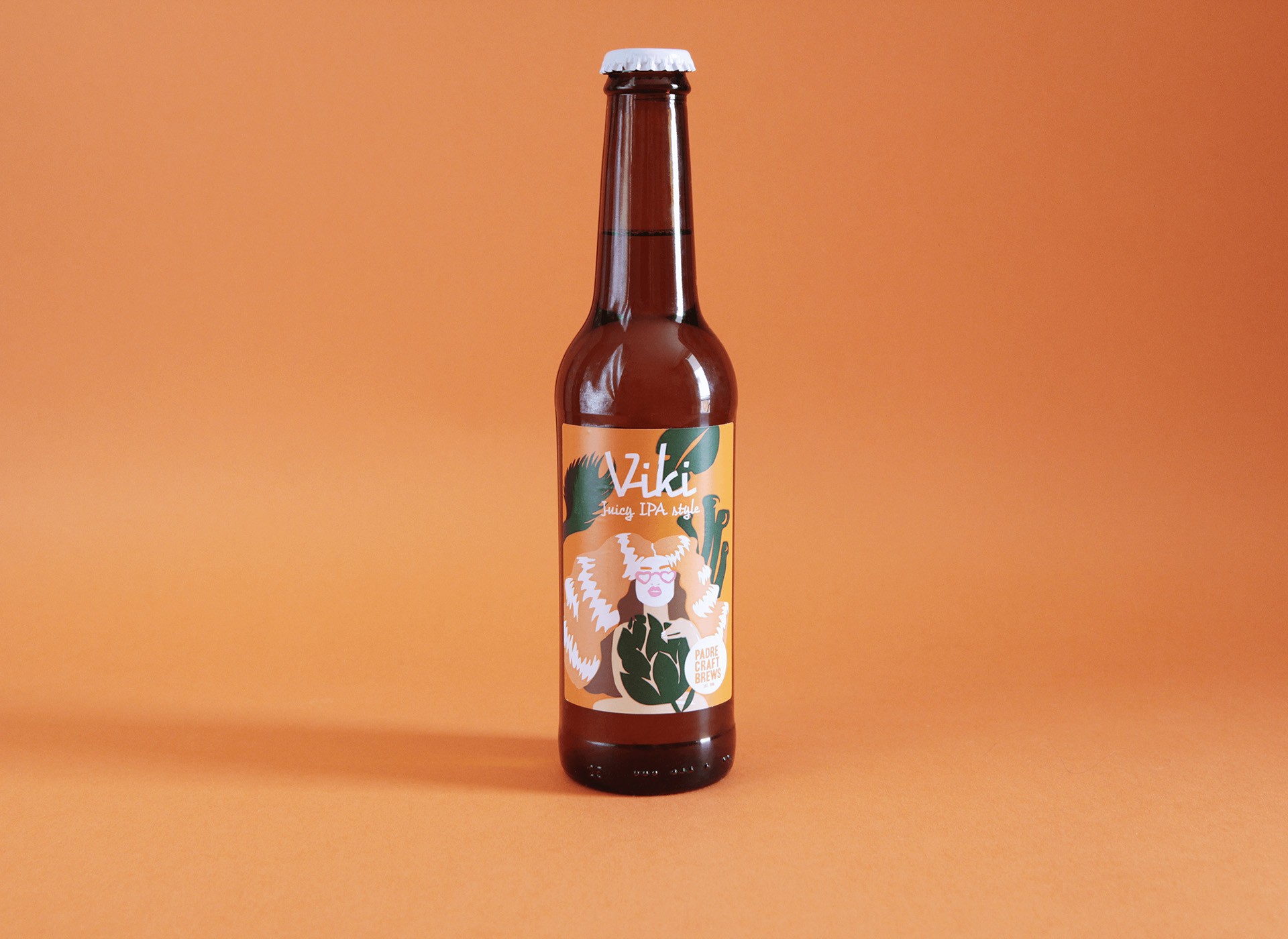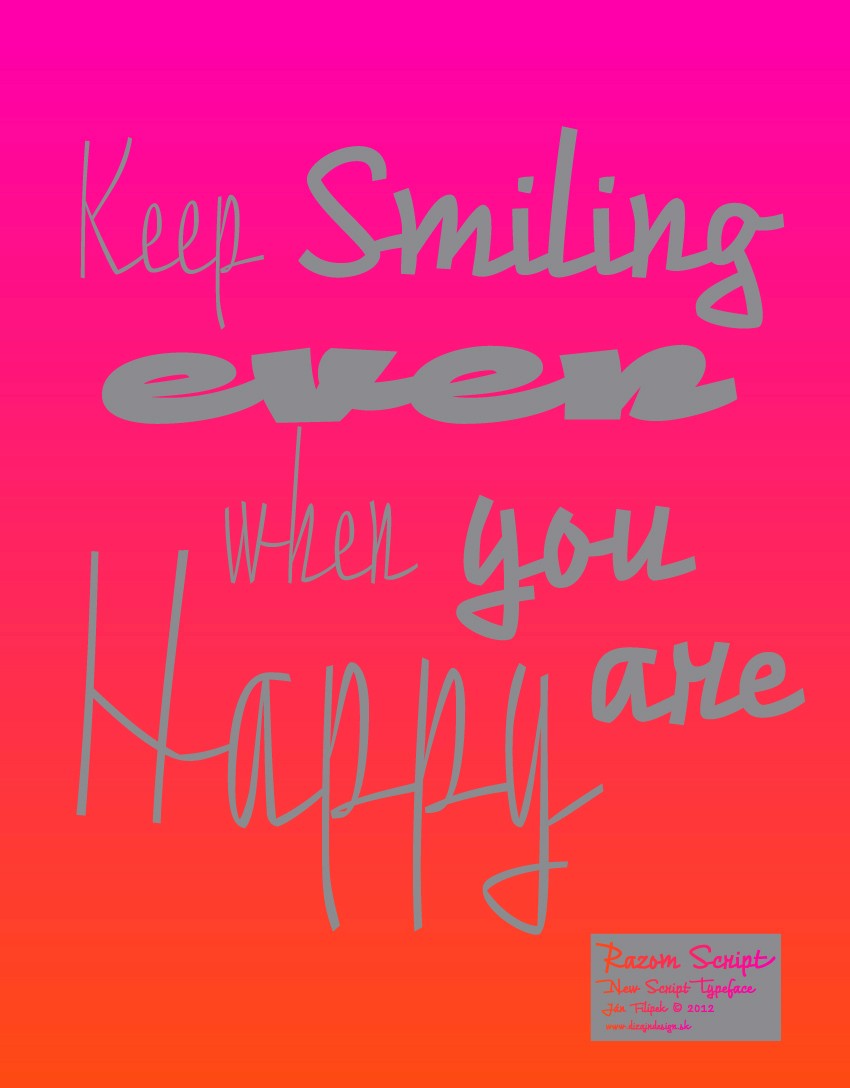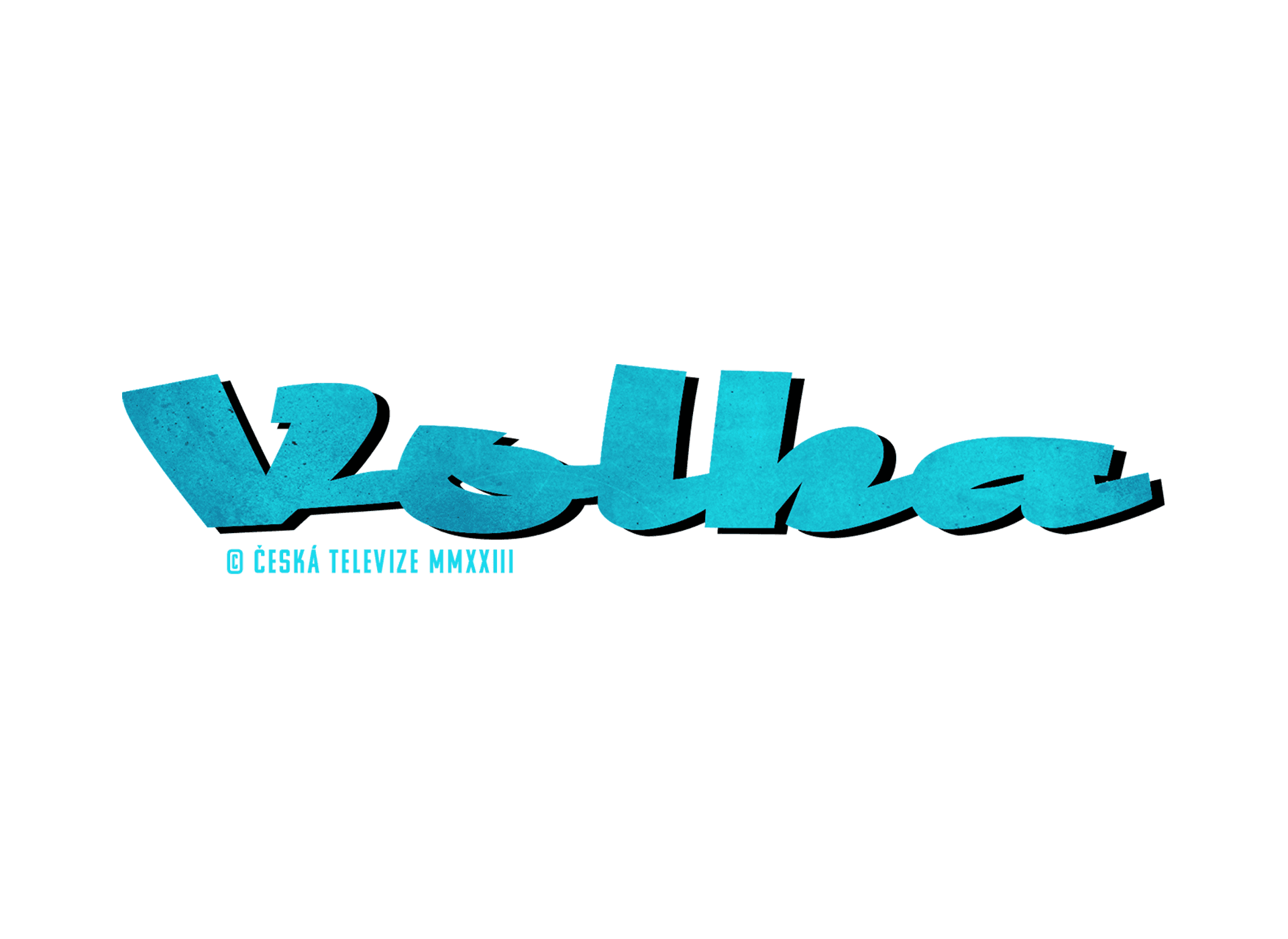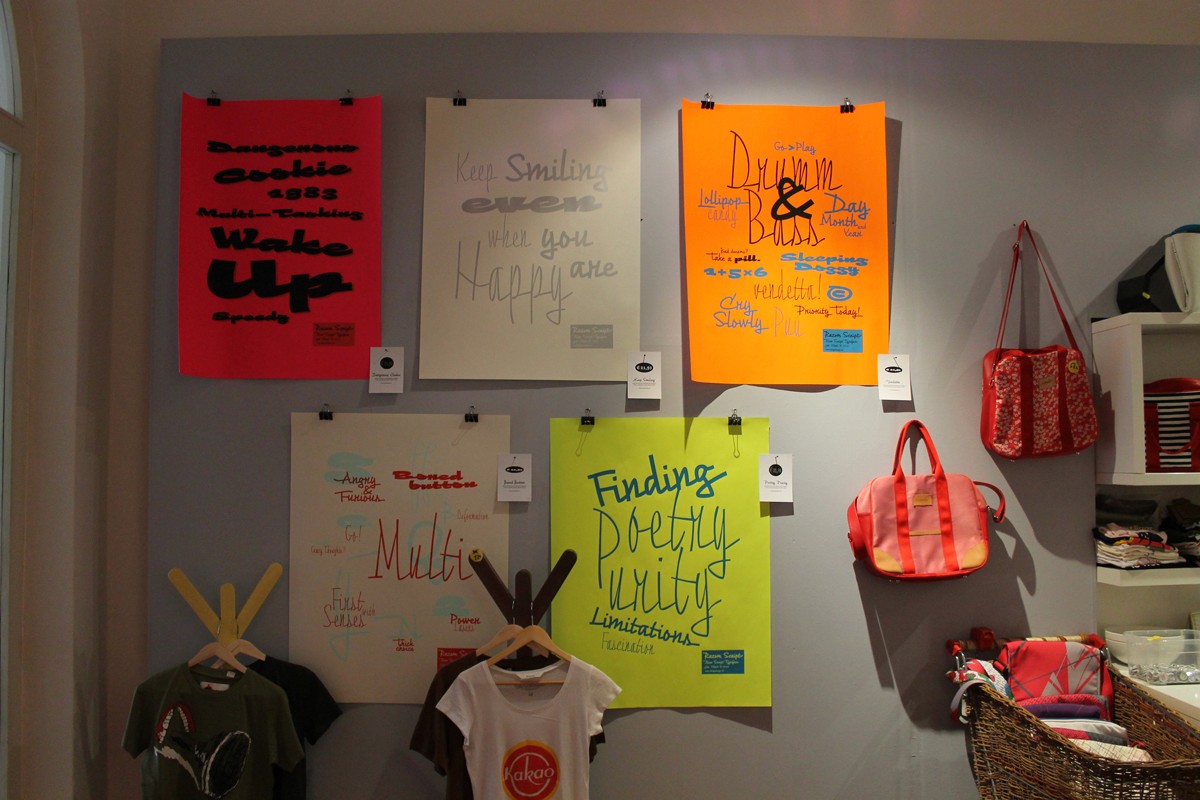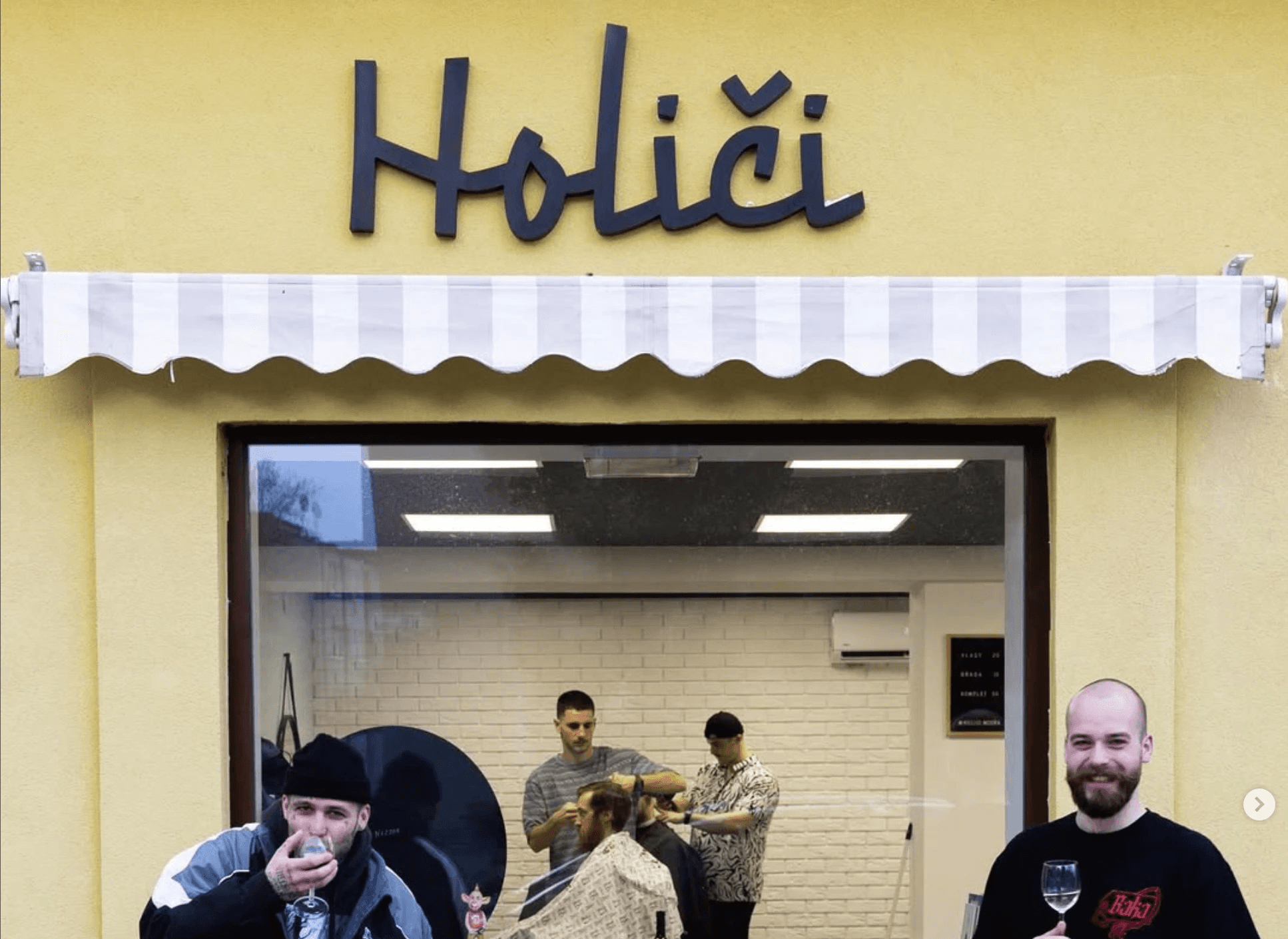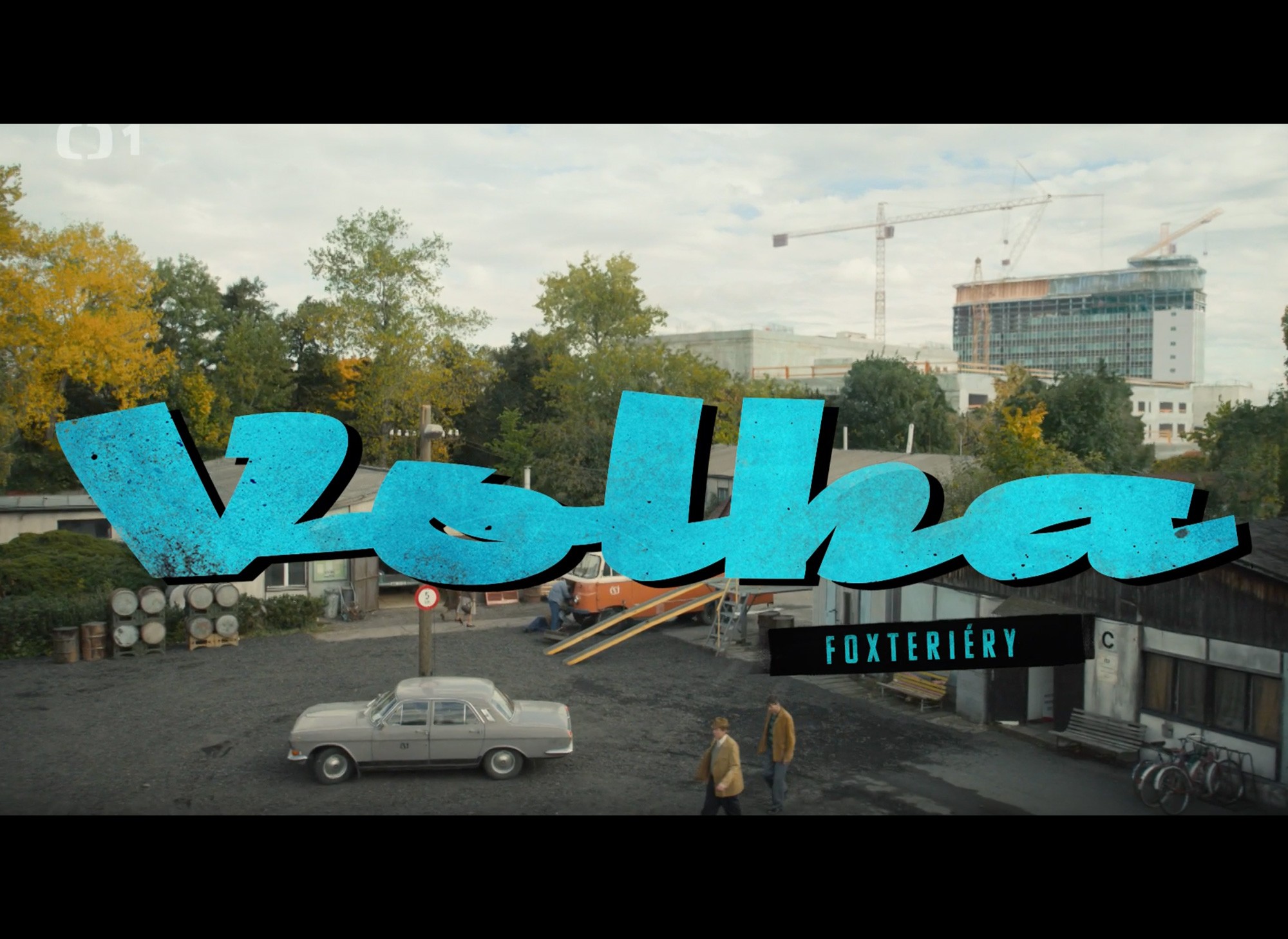
• Razom Script and Komu Typefaces in use for the Czech Television series "Volha" (Volga)
• Razom Script Typeface in use for beer labels / Design: Katarína Rybnická
• Promotional posters featuring Razom Script
• Promotional poster featuring Razom Script
About Razom Script Typeface
Calligraphy, Handwriting & Graffity
Razom Script is a typeface with deep roots in pointed brush calligraphy that takes advantage of current font technology to go beyond handwriting and reach new limits. A successful blend between printed and handwritten letterforms is visible when comparing upper and lowercase.
The weight of the typeface evolve in a way that pushes the limits of a script typeface to suggest new uses. Normally, families are developed in weights, not proportions. Also, having several weights in a script family is rather rare. But in Razon Script, as the fonts gain weight, big differences show up in the font outlines: the thin weight looks soft and delicate but as we examine darker variables, they also seem to get broken. The counters of the letters rotate from vertical to horizontal during this process.
Ligatures, Fractions, Ordinals, Localized Forms